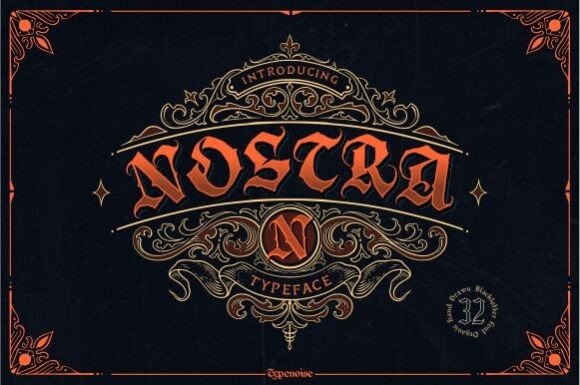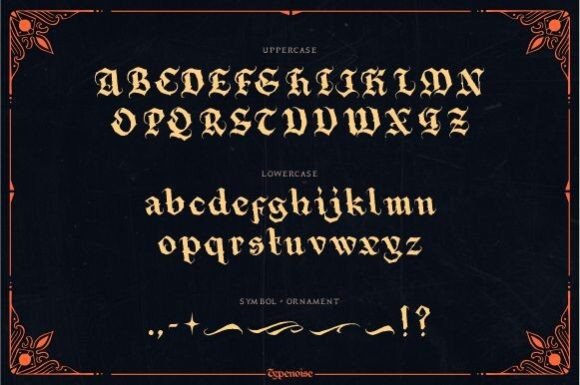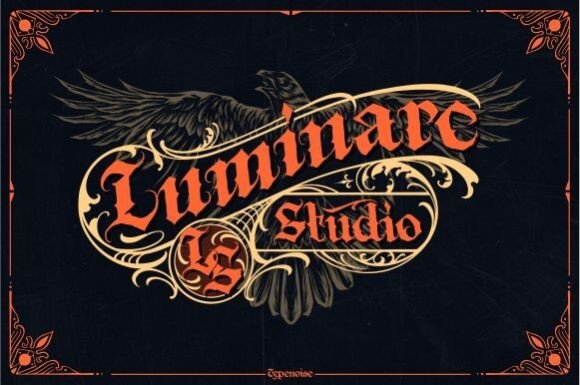
Nostra Font: Unique Vintage Gothic Display Font for Logo Design
About the Nostra Font
The Nostra Font offers a perfect balance of form and function for your design needs. Presenting Nostra Vintage Gothic, a captivating Blackletter Display Font designed to elevate your message with timeless elegance. Infuse your projects with words of intrinsic value using this unique typeface, which blends style and creativity seamlessly. Let Nostra Vintage Gothic add a touch of sophistication and allure to your designs, ensuring that your message stands out with unparalleled visual impact.
Nostra Font excels as a display typeface for headlines, logos, and short impactful statements in branding materials and posters. Its strong verticality and ornate details make it unsuitable for body text or UI elements where readability is paramount; long blocks of text set in Nostra would be difficult to read.
The font’s personality is bold and elegant, with a touch of vintage flair. It’s ideal for brands projecting luxury, sophistication, or a historical connection. Consider pairing Nostra with a clean sans-serif like Helvetica Neue for contrast, or a more delicate serif like Garamond for a balanced, classic feel.
For a modern twist, a geometric sans-serif such as Futura could create a striking juxtaposition. Avoid pairing it with other highly decorative fonts, which would result in visual clutter.